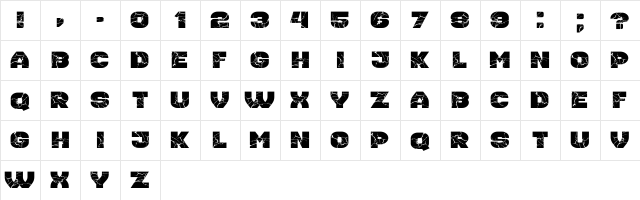
Housebreak Ext Grunged
Design Context for Housebreak Typeface
Housebreak trades polish for personality, using distressed and eroded forms to bring grit and attitude to creative work.
A strong fit for alternative music projects, graffiti-adjacent design, and anything that deliberately resists polish.
Pro Tip: Use Housebreak at larger sizes where the texture and irregularity of each letterform can be clearly seen — it loses its character at small sizes.